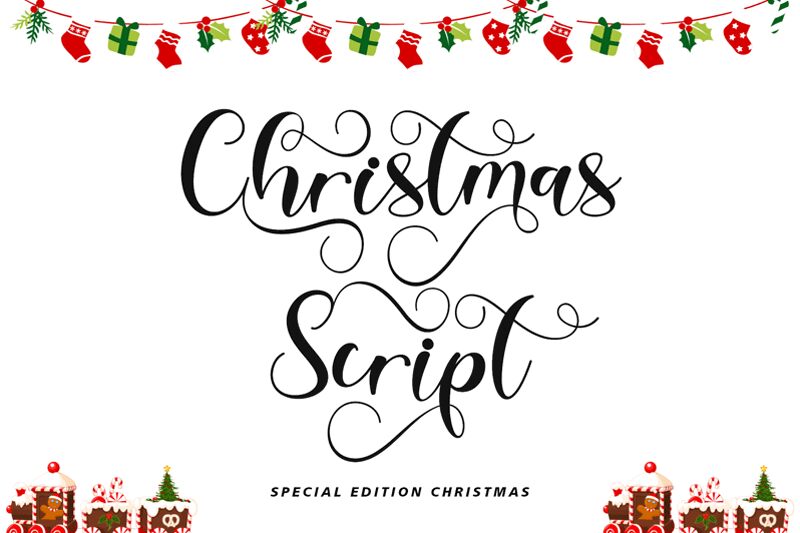
"Christmas Script" is a captivating calligraphy font crafted by Yoga Letter. With its graceful, sweeping strokes and elegant flourishes, this font exudes a timeless, enchanting aesthetic. The delicate balance between the thick and thin lines, coupled with the subtle variations in the letter shapes, lend a sense of artistry and sophistication to any design.
This font's versatility shines through, making it a perfect choice for a wide range of applications, from holiday-themed branding and invitations to high-end editorial content and luxury product packaging.
Its refined, yet playful, personality seamlessly bridges the gap between traditional calligraphy and modern typographic styles, offering designers a versatile tool to elevate their creative projects.